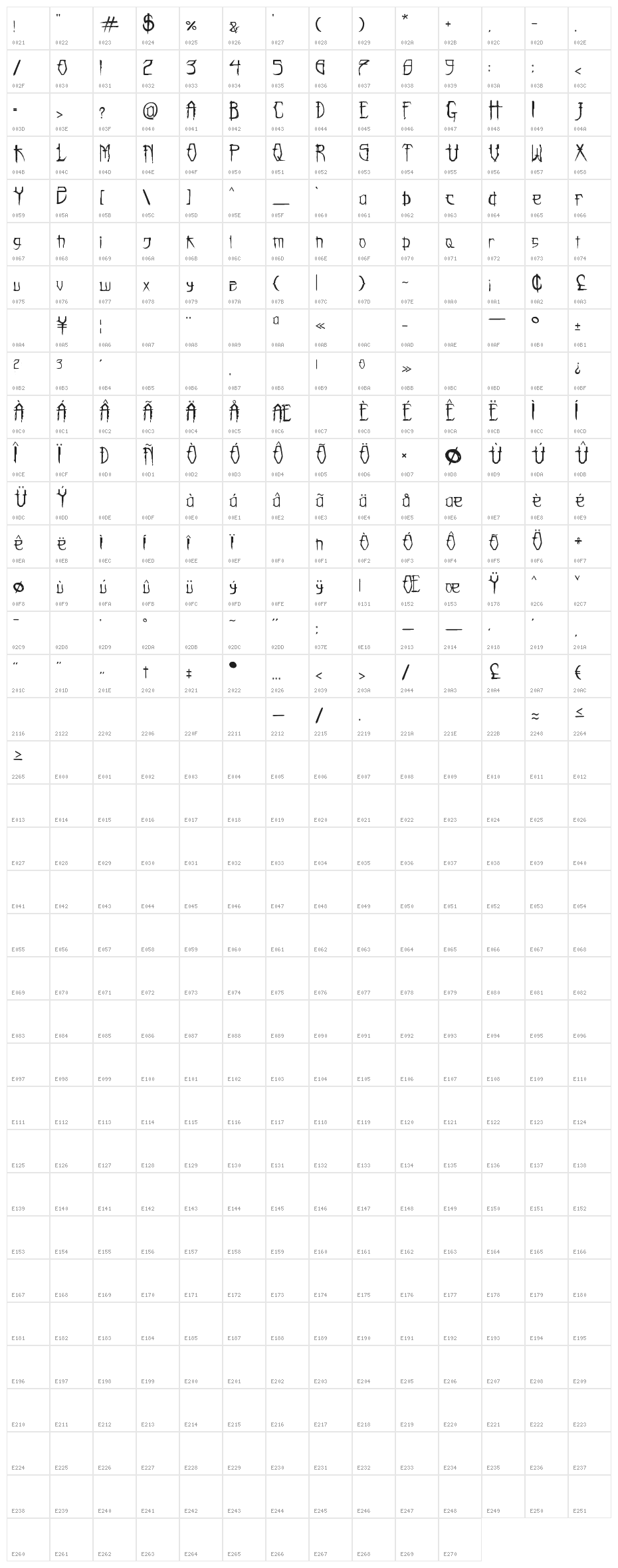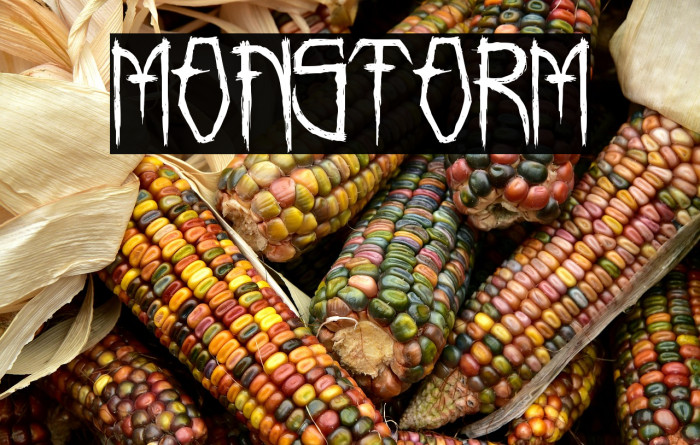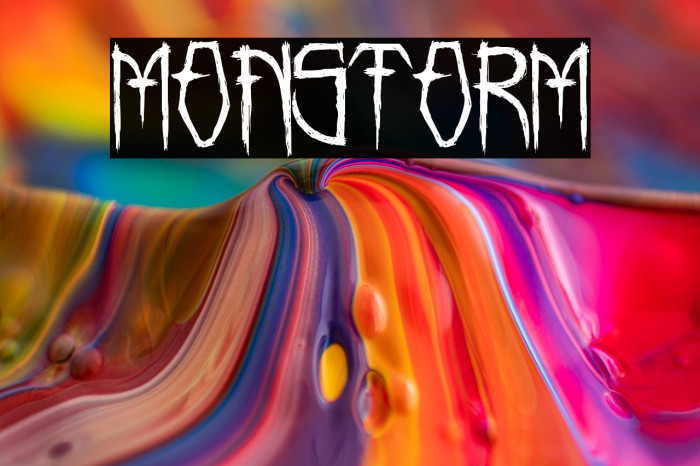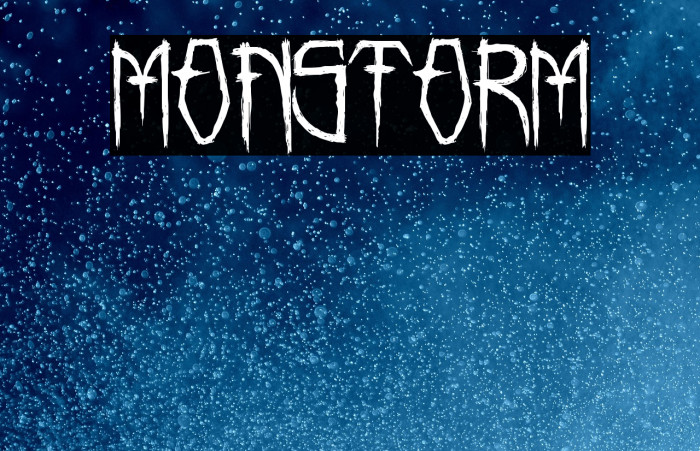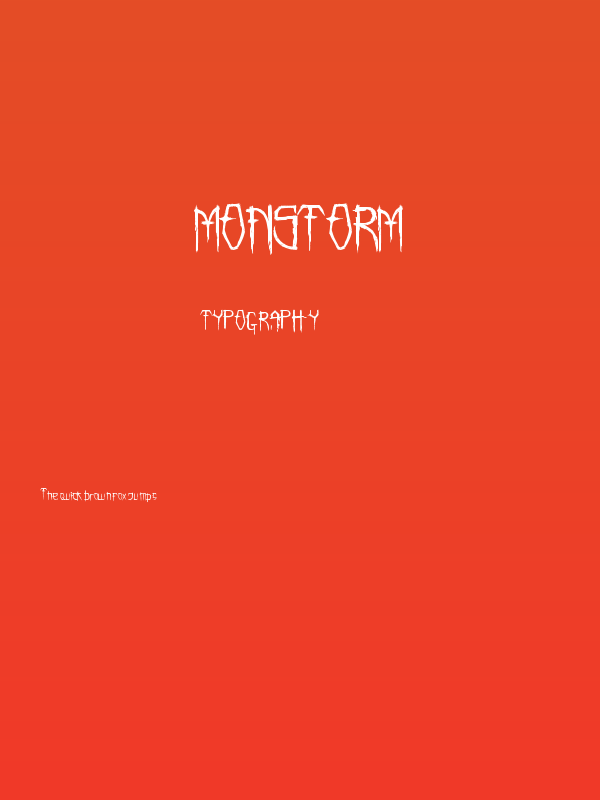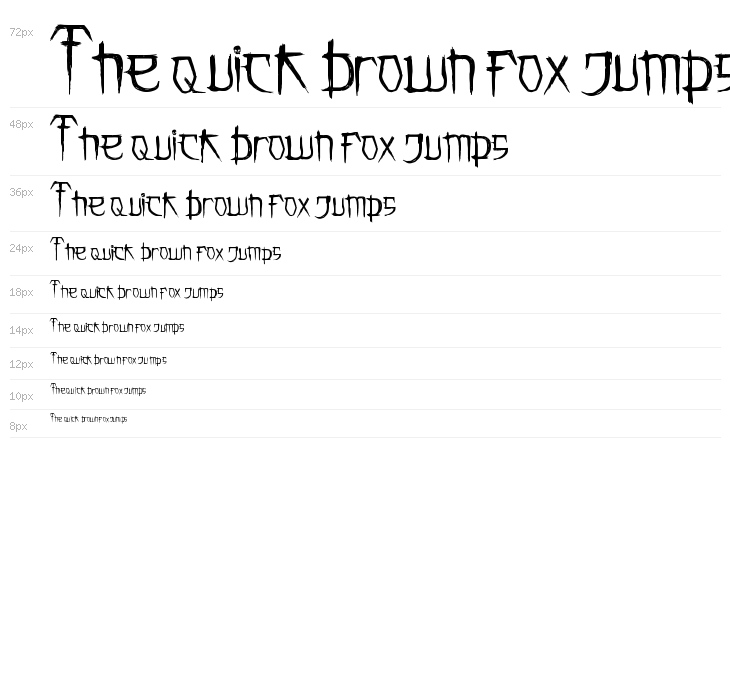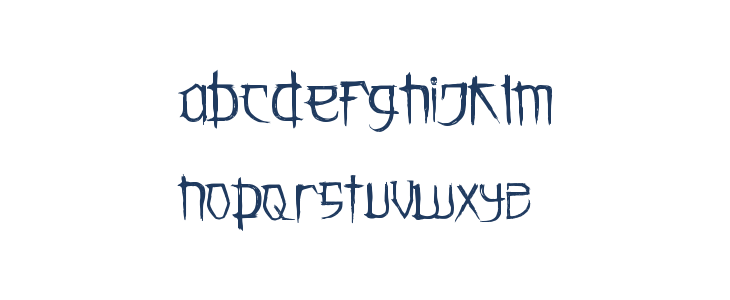
MONSTORM Font
MONSTORM Description
This font features a striking, jagged design that evokes a sense of mystery and edginess. The characters are elongated with sharp, irregular edges, giving them a distressed and chaotic appearance. The uppercase and lowercase letters maintain a consistent style, with each character exhibiting unique, angular strokes that suggest a hand-drawn quality. The numbers and special characters follow the same aesthetic, ensuring a cohesive look across all elements. This font's distinctive style makes it ideal for projects that require a bold, unconventional look.
| Proposed Projects | Ideal for horror-themed designs, album covers, posters, and any project needing a bold, unconventional look. |